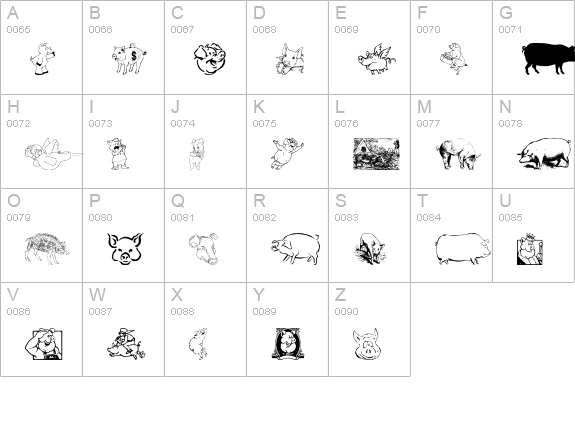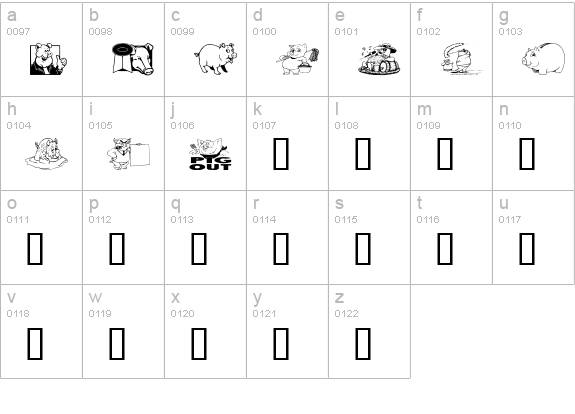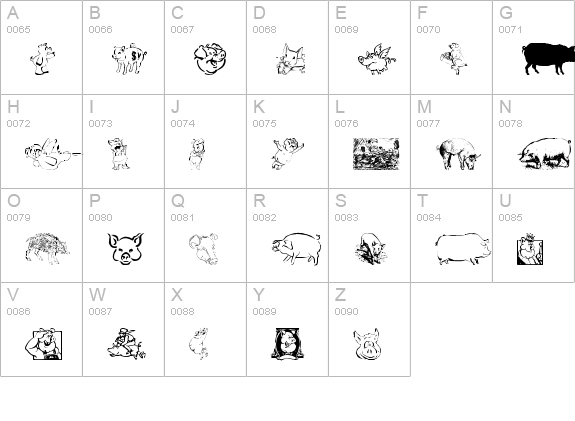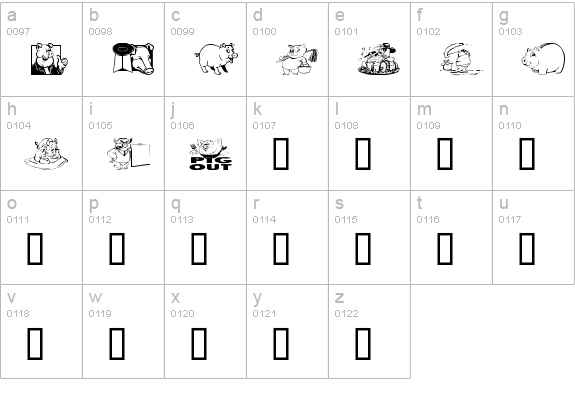
Ein Schwein Font Details
Ein Schwein font is a delightful and charming typeface that adds a playful touch to any design project. Inspired by the curly tails of pigs, this whimsical font features rounded edges and a unique personality that is sure to make your text stand out. Whether you're creating a fun poster, greeting card, or social media graphic, Ein Schwein font will bring a touch of joy to your work. Best of all, Ein Schwein font is available for free download at FontsMarket.com. Simply visit the website and add this fun font to your collection without any cost. Don't miss out on the opportunity to add a touch of whimsy to your designs with Ein Schwein font!